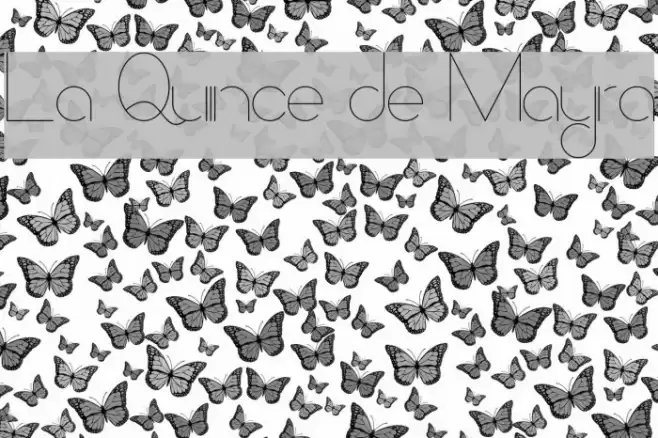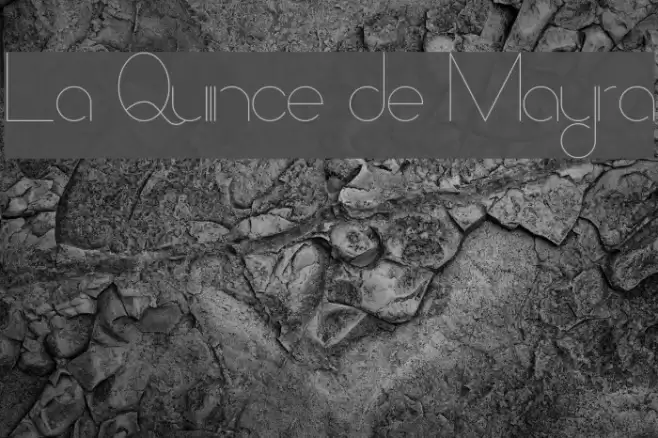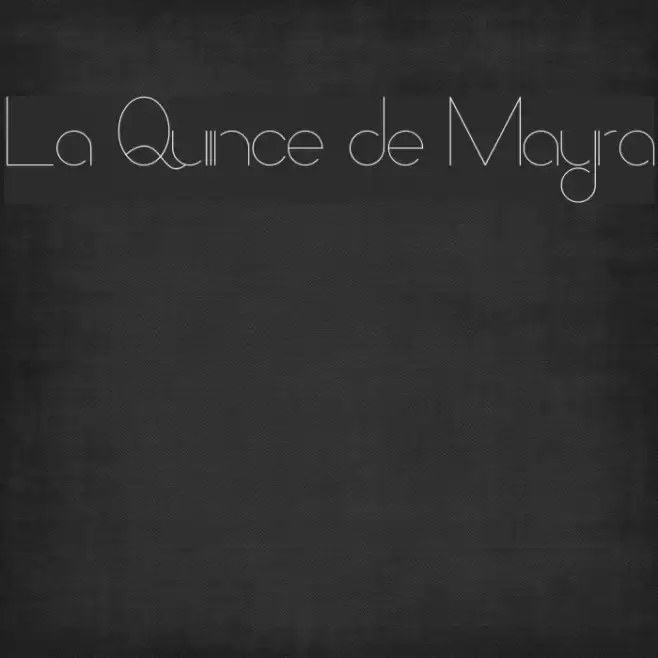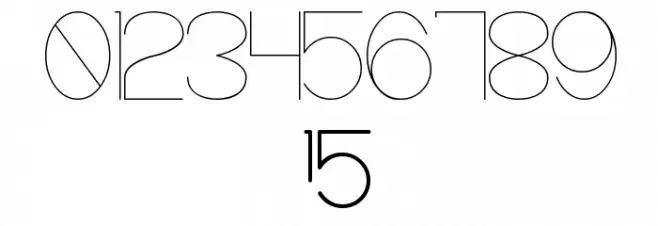
La Quince de Mayra Font
La Quince de Mayra Description
This font features a modern and sleek design with a minimalist approach. The characters are composed of thin, clean lines, giving it an airy and open feel. The uppercase letters are tall and narrow, while the lowercase letters maintain a consistent height, creating a harmonious balance. The numerals are distinct with a geometric influence, and the special characters are elegantly integrated into the overall design. The font's simplicity and elegance make it versatile for various applications, providing a contemporary aesthetic that is both stylish and functional.
A modern, minimalist font with thin, clean lines and a geometric influence from Uncategorized fonts.
- Proposed Projects: Ideal for modern branding, minimalist posters, contemporary web design, and elegant invitations.
- Weight: Light
- Character Spacing: Wide
- Use Case: Headlines, Logos, Branding